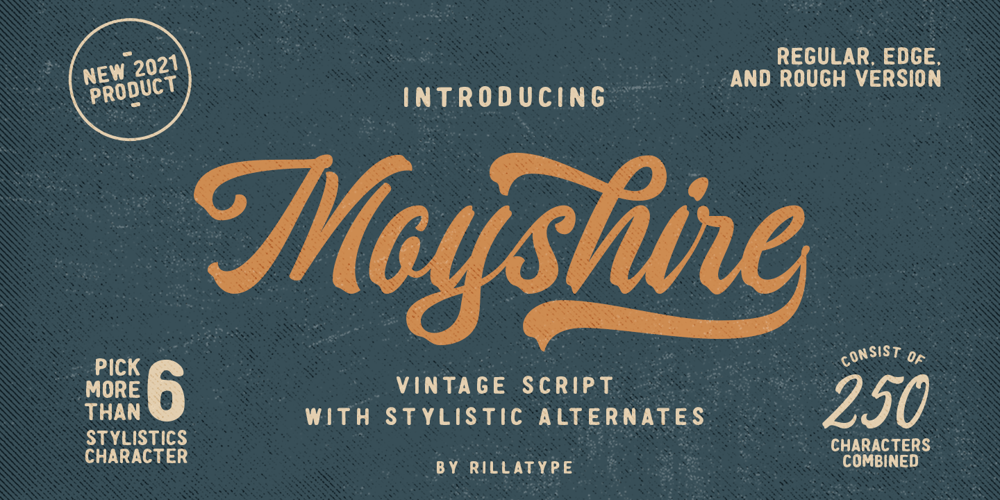
Moyshire
Moyshire font
Moyshire Font Family was designed by Gustian Agung Asprilla and published by Rillatype. Moyshire contains 3 styles and family package options. Moyshire is a vintage script font with a little touch of brush to make this font more bold and eye catching. this font is perfect for branding logo, illustration, or apparel design. This font also support multilingual, number and symbol. This font comes with 3 version, Regular, Rough, and Edge.Features : uppercase & lowercase numbers and punctuation multilingual alternates / swashes and ligatures PUA encoded